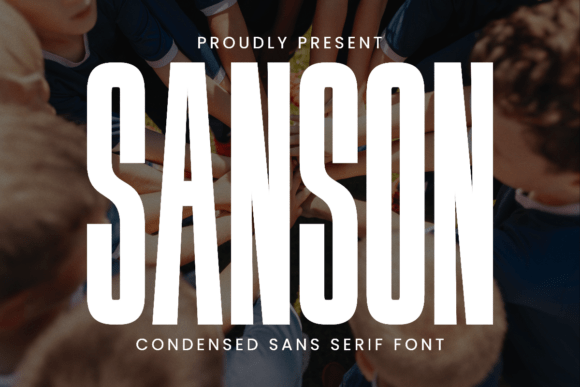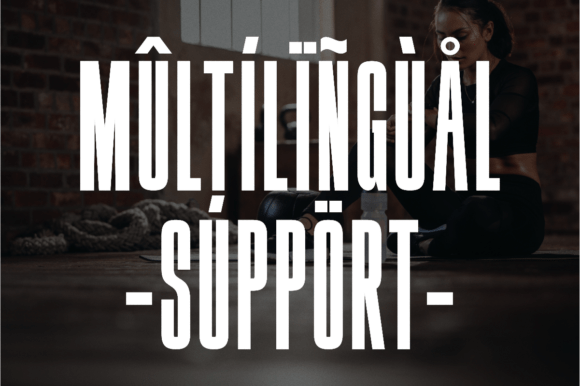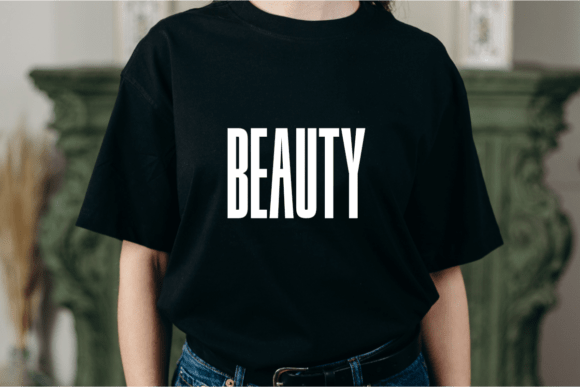
Sanson Font
Sanson is a bold and modern condensed sans serif font designed to make a strong visual impact. With its tall, narrow letterforms and clean lines, this typeface is perfect for headlines, posters, sports branding, advertising, magazine titles, social media graphics, packaging, and more. Its commanding presence and high legibility make it a versatile choice for both print and digital designs where you want your message to stand out.